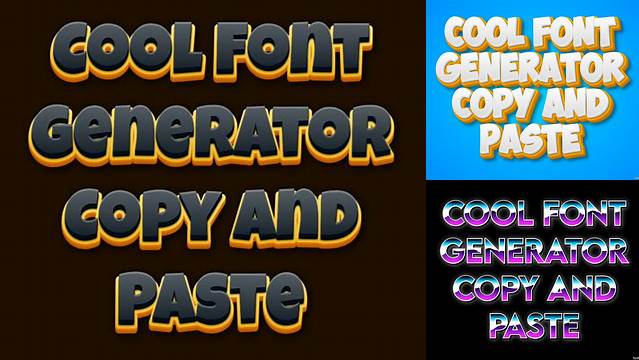
Cool Fonts: Copy & Paste Guide For Stylish Text
Hey guys! Ever wanted to spice up your social media, presentations, or just about anything with some eye-catching fonts? You've come to the right place! This guide dives deep into the world of cool fonts, showing you how to easily paste and copy them to make your content stand out. We'll cover everything from finding the best fonts to using them effectively. Let's get started!
1. Understanding Cool Fonts: What Makes Them Stand Out?
Cool fonts aren't just your regular Times New Roman or Arial. They're fonts that possess unique characteristics, whether it's a distinctive serif, a playful curve, or a bold weight. These fonts grab attention and add personality to your text. Think about the fonts used in movie posters, logos, or even comic books – they all have a certain flair that makes them memorable. Understanding what makes a font “cool” is the first step in effectively using them in your projects. It’s all about finding that perfect balance between readability and aesthetic appeal. You want something that looks great but doesn’t sacrifice clarity. Different fonts evoke different emotions and styles, so choosing the right one can significantly impact how your message is perceived. Consider the context – a bold, futuristic font might be perfect for a tech startup, but a more elegant script font might be better suited for a wedding invitation. The possibilities are endless, so experiment and have fun exploring the vast world of typography!
2. Finding the Best Sources for Cool Fonts
Okay, so where do you even find these amazing cool fonts? The internet is your oyster! Numerous websites offer a vast collection of fonts, both free and premium. Some popular options include Google Fonts, DaFont, and FontSquirrel. Google Fonts is a fantastic resource for free, high-quality fonts that are easy to use on websites and documents. DaFont boasts a massive library of user-submitted fonts, ranging from quirky and playful to elegant and sophisticated. FontSquirrel is another great option, offering a curated selection of free fonts that are licensed for commercial use. When browsing these websites, pay attention to the font license. Some fonts are free for personal use only, while others can be used for commercial projects. Make sure you understand the terms of use before incorporating a font into your work. Also, don't be afraid to explore smaller, independent font foundries. These smaller foundries often offer unique and high-quality fonts that you won't find anywhere else. Exploring different sources will broaden your horizons and help you discover hidden gems that perfectly match your creative vision.
3. Cool Fonts Paste and Copy: A Step-by-Step Guide
4. Using Font Generators for Social Media
Social media can be a tricky beast when it comes to cool fonts. Most platforms don't allow you to use custom fonts directly in your posts. That's where font generators come in handy! These tools let you type in your text and then generate it in a variety of stylish fonts using Unicode characters. You can then copy and paste these stylized characters into your social media posts. Some popular font generators include LingoJam, YayText, and CoolSymbol. Keep in mind that these generated fonts aren't actually fonts in the traditional sense. They're just a collection of Unicode characters that resemble different font styles. As a result, they may not look exactly the same on all devices or platforms. Also, be careful not to overuse these fonts. A little bit of stylized text can add emphasis and flair, but too much can make your posts look cluttered and difficult to read. Use them sparingly and strategically to highlight key words or phrases.
7. Pairing Cool Fonts: Creating Visual Harmony
Using cool fonts effectively is not just about choosing a single font. It's also about pairing fonts together to create visual harmony. A well-chosen font pairing can elevate your design and make your text more engaging. When pairing fonts, look for fonts that complement each other in terms of style and weight. A common approach is to pair a serif font with a sans-serif font. For example, you could use a serif font for headings and a sans-serif font for body text. This creates a nice contrast and helps to distinguish the different elements of your design. Another approach is to use different weights of the same font family. For example, you could use a bold weight for headings and a regular weight for body text. This creates a subtle but effective visual hierarchy. Experiment with different font pairings to find what works best for your project. There are also many online resources that offer font pairing suggestions and inspiration.
8. Understanding Font Licensing: Avoiding Legal Issues
Before you start using cool fonts in your projects, it's crucial to understand font licensing. Font licenses define how you can use a particular font. Some fonts are free for personal use only, while others require a commercial license. A commercial license allows you to use the font in projects that generate revenue, such as websites, logos, and marketing materials. It's important to read the font license carefully before using a font in your work. Using a font without the proper license can lead to legal issues and fines. Many font foundries offer different types of licenses depending on your needs. For example, a small business might need a different license than a large corporation. If you're unsure about the licensing terms, it's always best to contact the font foundry directly and ask for clarification. Protecting yourself legally is really important, guys, so always double-check!
9. Cool Fonts and Branding: Aligning Typography with Your Identity
Your choice of cool fonts plays a significant role in your branding. Typography is a key element of visual identity, and it can communicate a lot about your brand's personality and values. When choosing fonts for your brand, consider your target audience and the message you want to convey. A bold, modern font might be a good choice for a tech startup, while a classic serif font might be more appropriate for a traditional law firm. Consistency is also important. Use the same fonts across all of your marketing materials, including your website, logo, and social media posts. This will help to create a cohesive and recognizable brand identity. Also, be sure to choose fonts that are legible and easy to read, even at small sizes. Your brand's typography should not only look good but also be functional and accessible.
10. The Future of Cool Fonts: Trends and Innovations
The world of cool fonts is constantly evolving. New font styles and technologies are emerging all the time. Some of the current trends in typography include variable fonts, geometric sans-serifs, and hand-drawn fonts. Variable fonts allow you to customize various aspects of a font, such as its weight, width, and slant, all within a single font file. This can significantly reduce file sizes and improve website performance. Geometric sans-serifs are characterized by their clean, minimalist design and their use of geometric shapes. These fonts are popular for their versatility and their ability to convey a sense of modernity. Hand-drawn fonts add a personal and unique touch to your designs. These fonts often feature imperfect lines and irregular shapes, giving them a warm and inviting feel. As technology continues to advance, we can expect to see even more innovative and exciting developments in the world of typography.